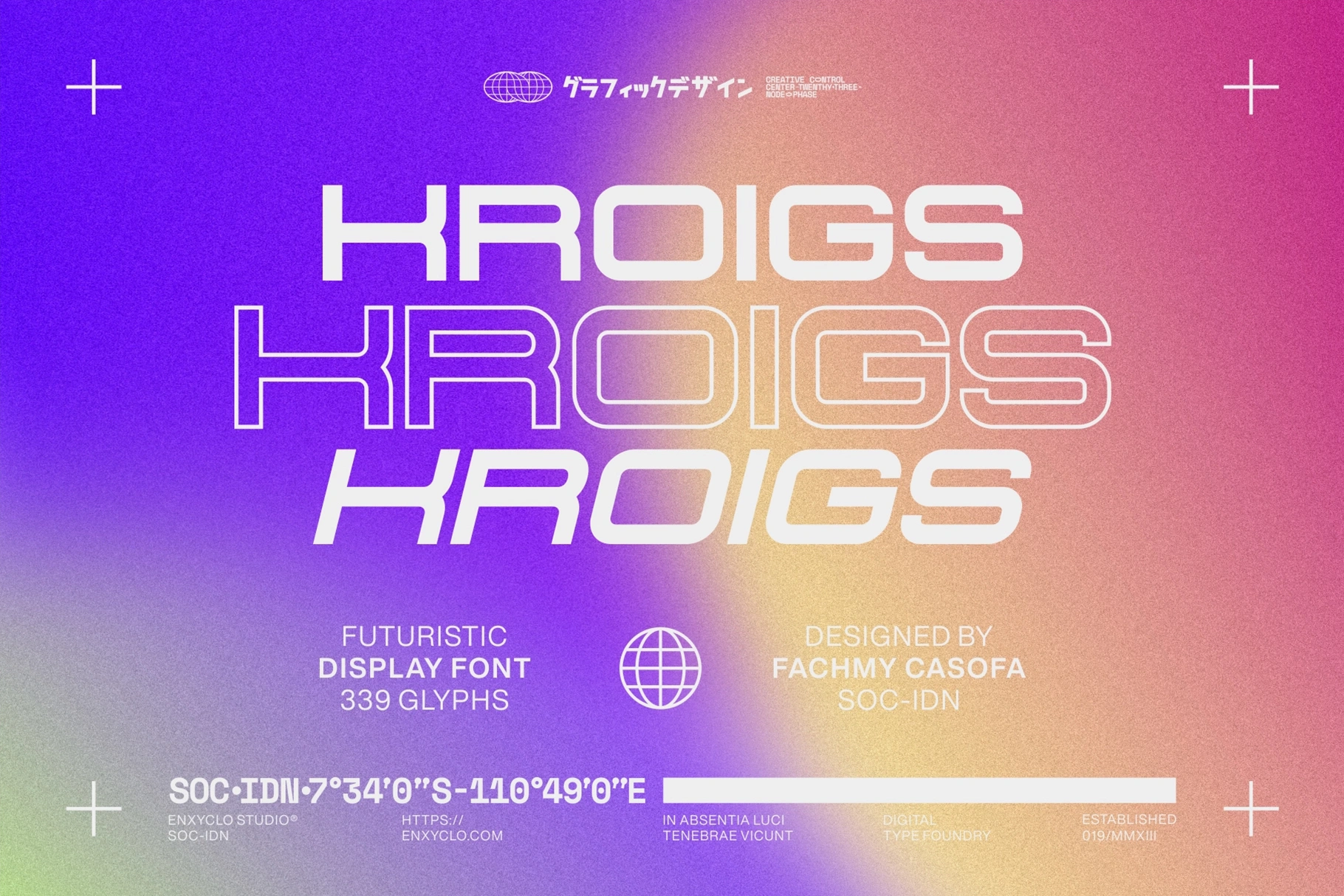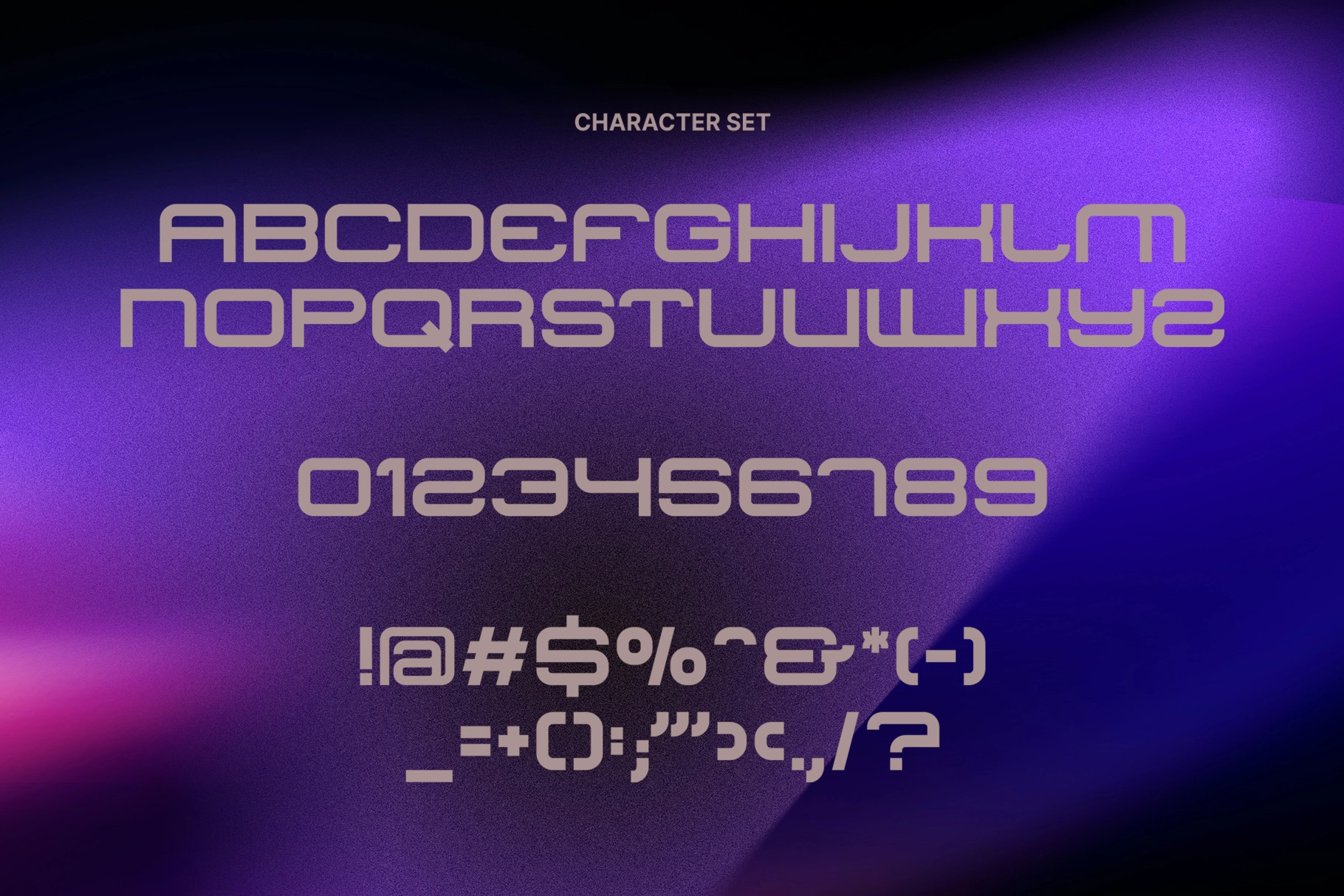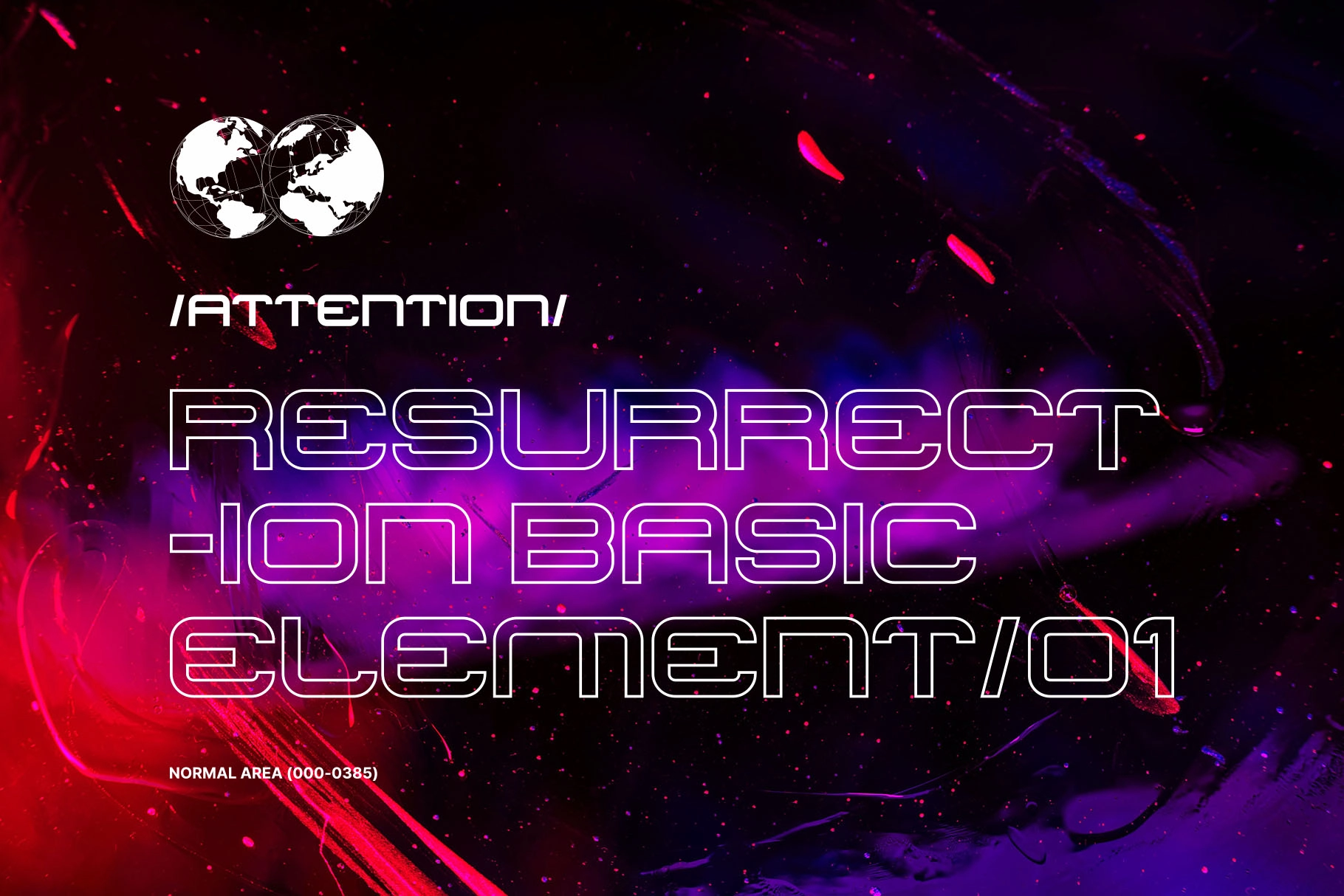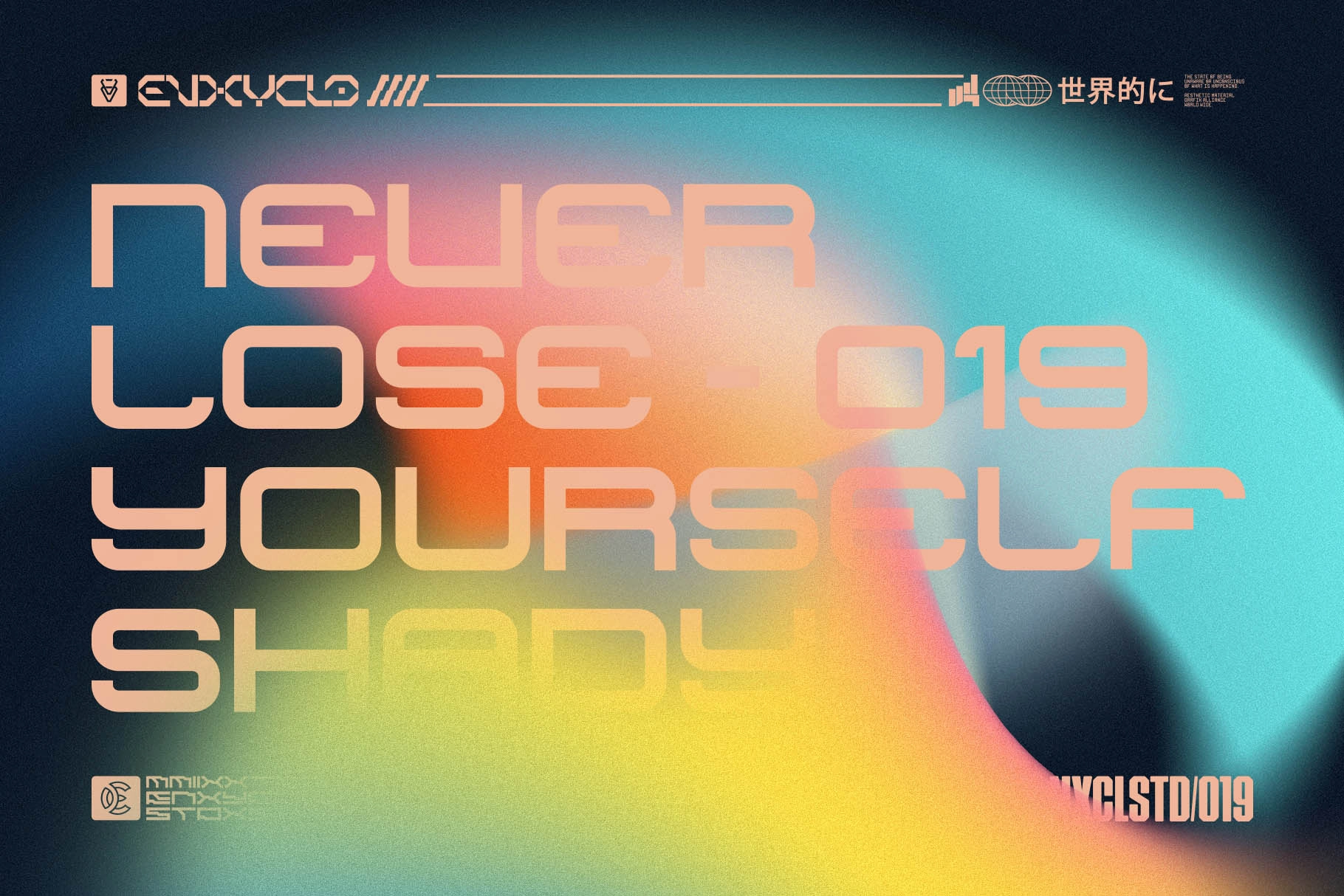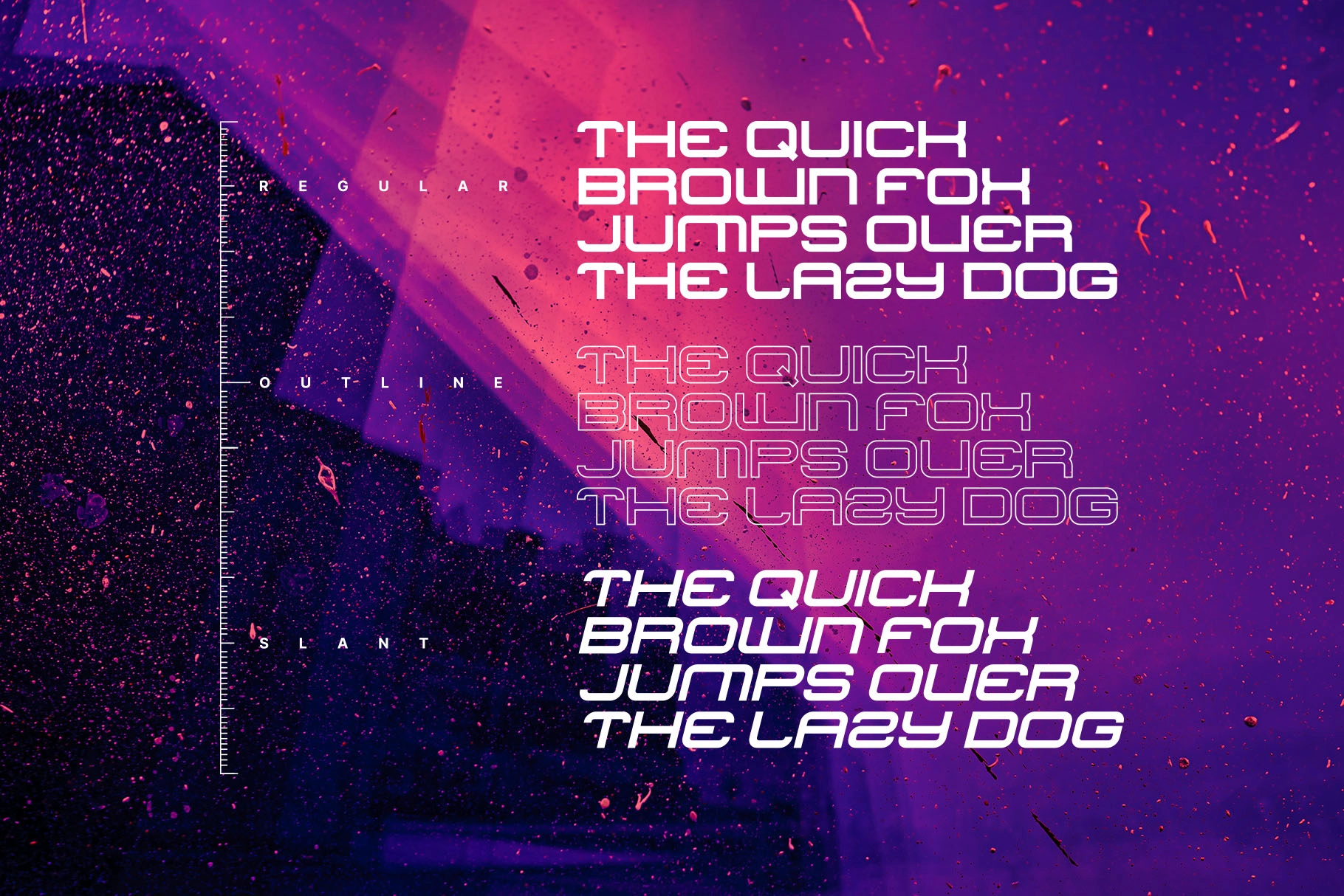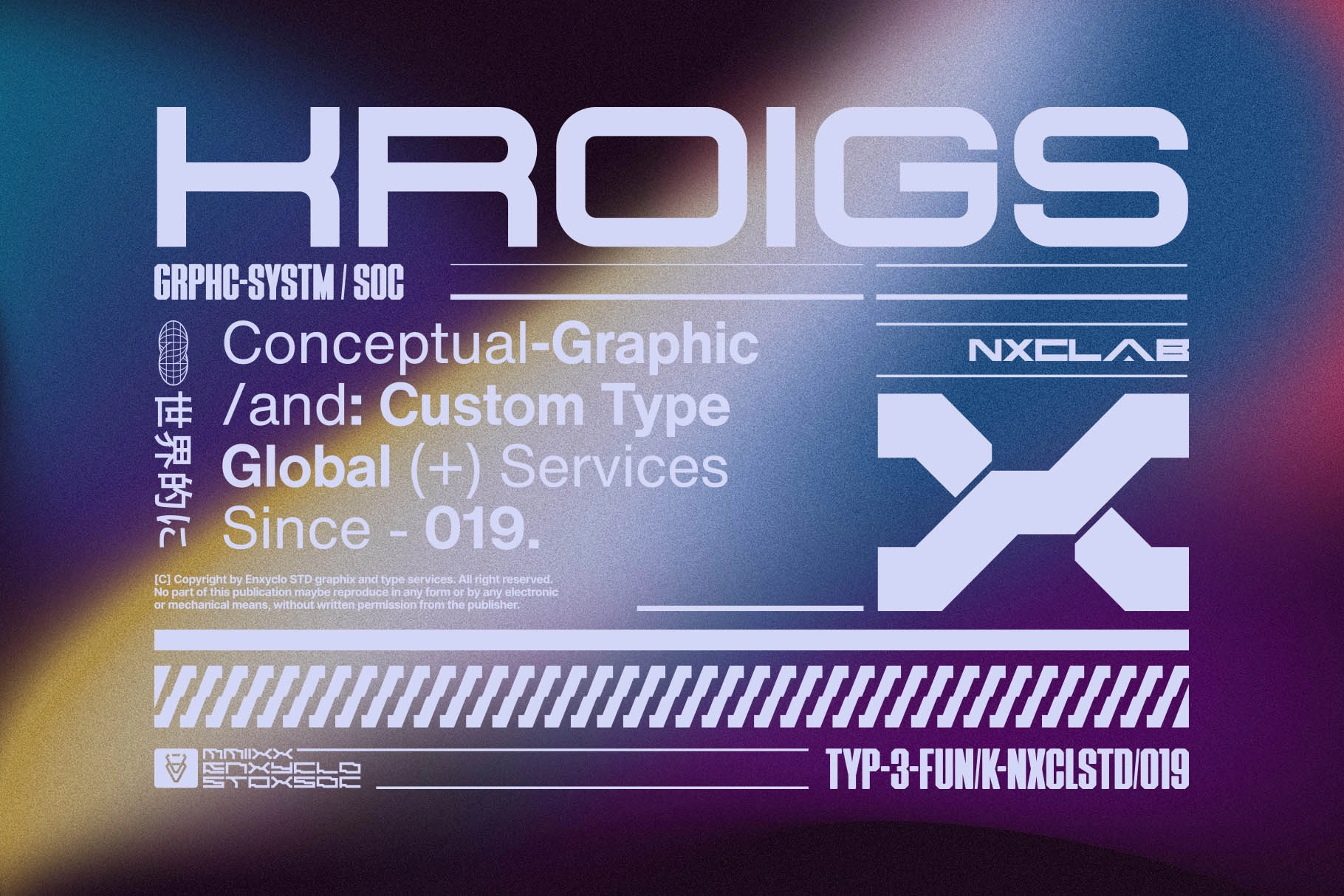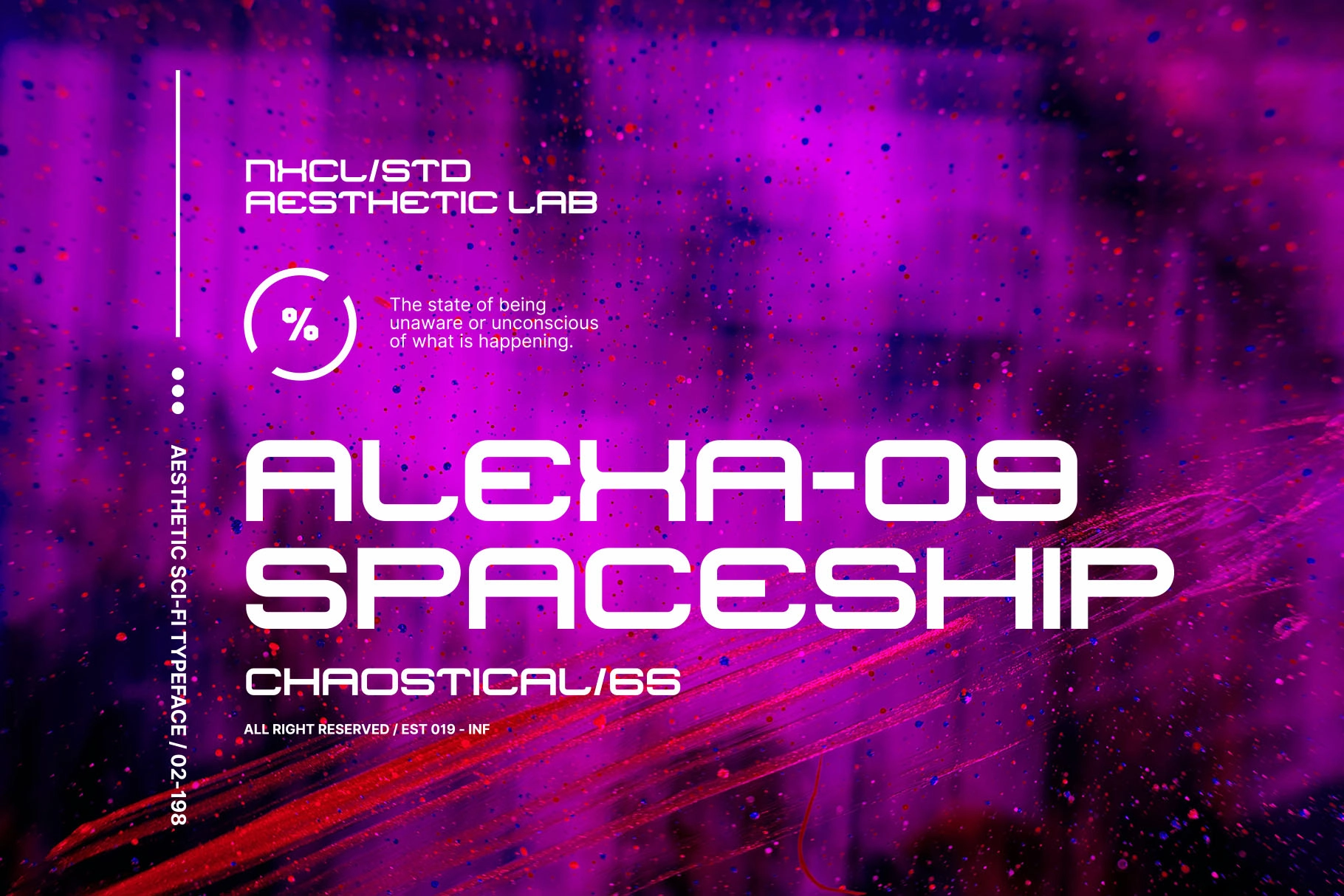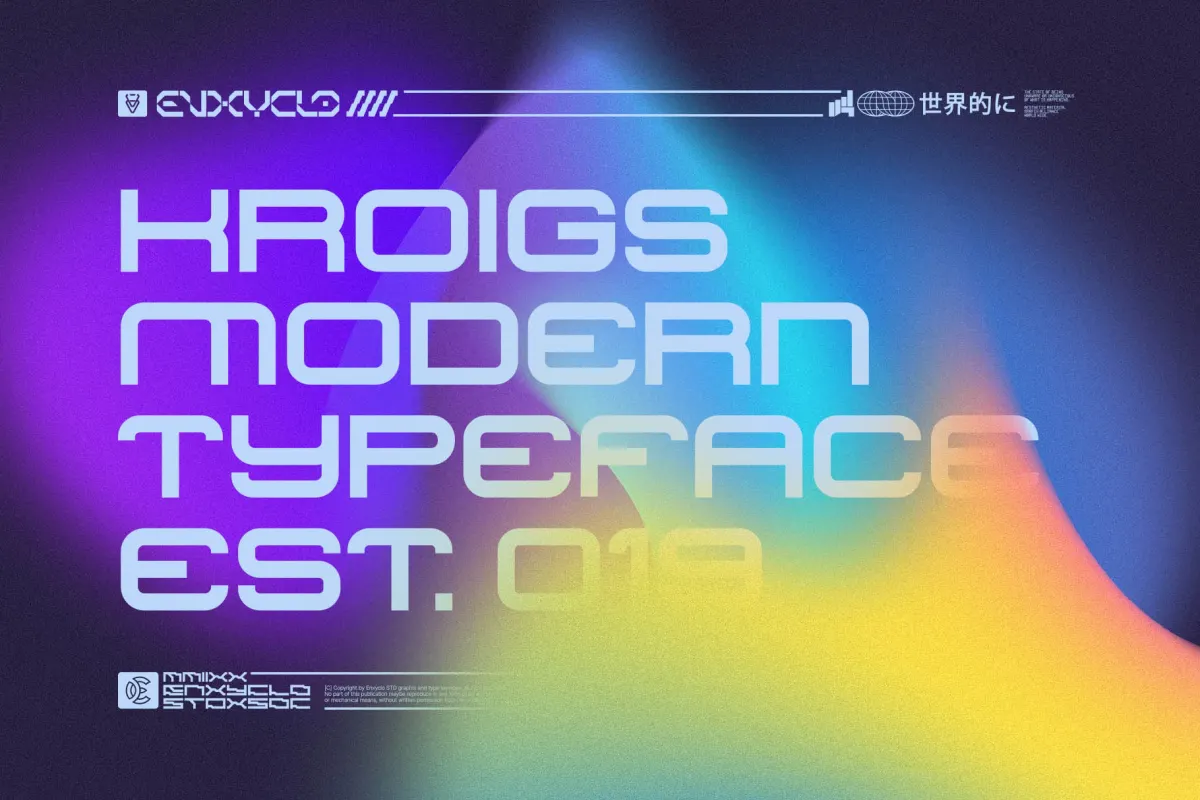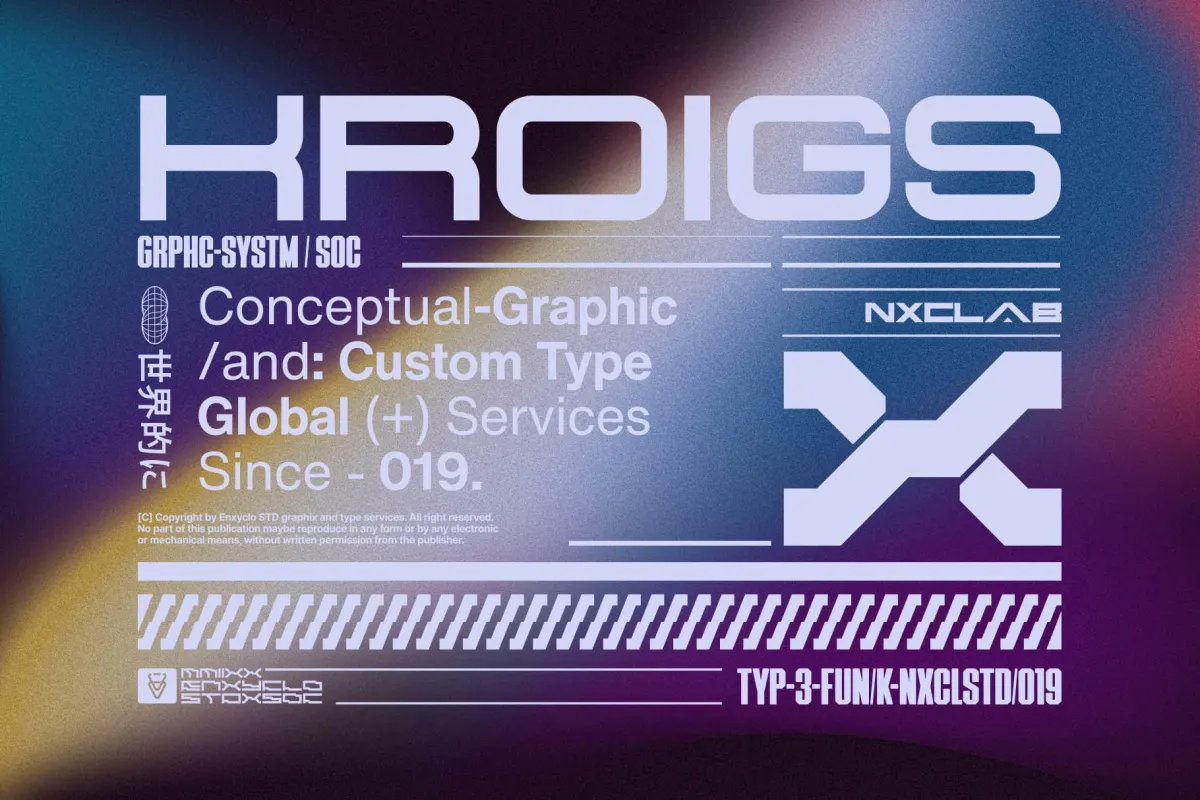
Kroigs - Futuristic Display Font
Kroigs - Futuristic Display Font is a bold and dynamic typeface crafted to bring a high-tech, forward-thinking aesthetic to your designs. With its sharp angles and modern structure, this font delivers a powerful visual impact that makes any layout feel innovative and cutting-edge.
Perfect for headlines, posters, branding, websites, magazines, thumbnails, streetwear, and logo design, Kroigs is built to stand out. Its clean futuristic style ensures strong readability while adding a distinctive sci-fi edge, making it an excellent choice for projects that demand attention and modern appeal.
- 3 styles: Regular, Outline & Slant
- 113 glyphs per style (339 total glyphs)
- Uppercase characters